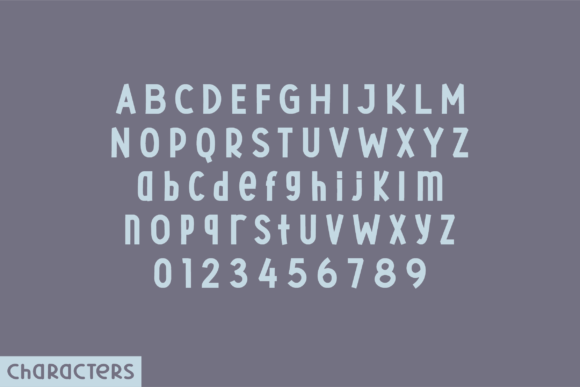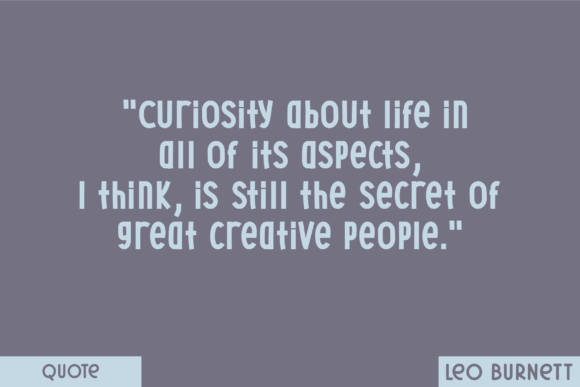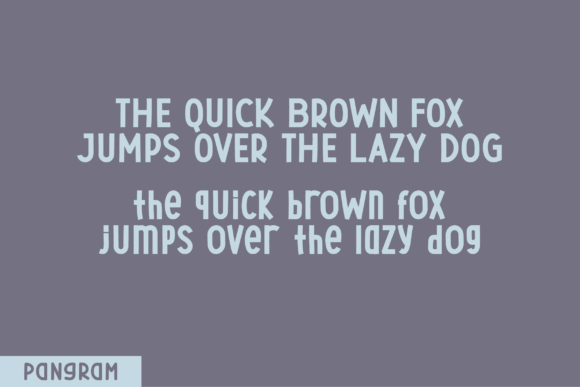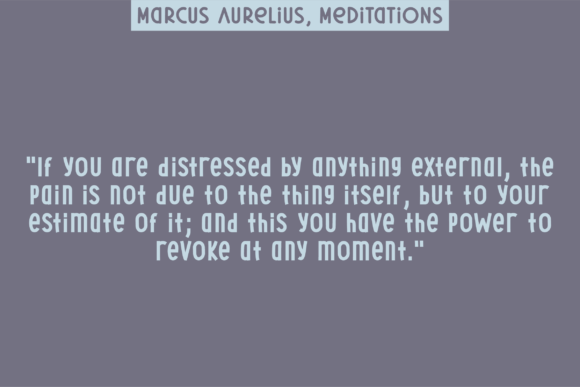
Introducing Flatbread Font: A Unique Sans Serif for Creative Designs
In the world of typography, a new font has emerged that’s making waves among designers and crafters alike. Meet Flatbread Font, a natural sans serif font that’s been carefully crafted to stand out from the crowd. What makes Flatbread truly unique is its distinctive approach to character design, where not a single node in each character’s indentation has been altered. This attention to detail results in a font that’s not only visually appealing but also refreshingly original.
The Story Behind Flatbread Font
Flatbread Font is the brainchild of a meticulous designer who sought to create a typeface that would defy conventional norms. By leaving each character’s indentation untouched, the font achieves a distinctive, hand-crafted feel that’s reminiscent of artisanal bread-making – hence the name Flatbread. This approach not only sets Flatbread apart from other sans serif fonts but also lends it an air of authenticity and charm.
Key Features of Flatbread Font
- Natural and Organic Feel: Flatbread Font boasts a natural, effortless look that makes it perfect for designs that require a personal touch.
- Unique Character Indentation: The font’s distinctive feature of unaltered character indentation gives it a one-of-a-kind appearance.
- Sans Serif Elegance: Flatbread’s clean lines and sans serif design ensure it remains elegant and readable across various applications.
- Versatile: Whether you’re working on quotes, notes, t-shirt designs, or product packaging, Flatbread Font adapts seamlessly to different contexts.
Flatbread Font is a treasure trove for designers and crafters looking to infuse their projects with a dash of personality. Here are a few ways you can make the most of this versatile font:
- Quotes and Notes: Add a personal touch to inspirational quotes, journal entries, or sticky notes with Flatbread’s charming and approachable aesthetic.
- T-Shirt and Merchandise Design: Elevate your apparel and product designs with a font that’s both stylish and distinctive.
- Product Packaging: Stand out in the market with packaging that features Flatbread Font, perfect for branding and product labels.
- Digital and Print Media: From social media graphics to flyers and brochures, Flatbread Font brings a refreshing visual appeal to any medium.
Why Choose Flatbread Font?
In a sea of typefaces, Flatbread Font offers something truly special – a blend of uniqueness, elegance, and versatility. Designers and crafters can benefit from using Flatbread in several ways:
- Enhance Brand Identity: Use Flatbread Font to create a distinctive visual identity for your brand that stands out from competitors.
- Engage Your Audience: The font’s unique charm can help capture the attention of your audience, making your designs more memorable.
- Streamline Your Design Process: With Flatbread’s versatility, you can use it across a wide range of projects, reducing the need for multiple fonts.
Flatbread Font is more than just a typeface – it’s a design statement. Its unique blend of natural elegance and distinctive character indentation makes it an invaluable asset for designers and crafters looking to add a personal touch to their work. Whether you’re creating quotes, designing merchandise, or crafting product packaging, Flatbread Font is sure to elevate your designs to new heights. Discover the creative possibilities with Flatbread Font and make your mark with a truly unique typographic style.